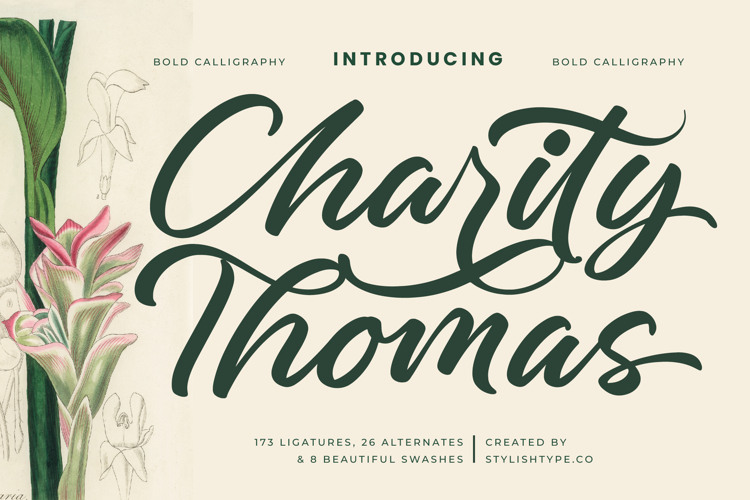
Charity Thomas - Bold Calligraphy Font
Charity Thomas is a bold calligraphy font designed to bring strength, elegance, and modern artistry into creative projects. With its thick strokes, dynamic curves, and confident style, this typeface captures attention while maintaining refined sophistication. Featuring 173 ligatures, 26 alternates, and 8 beautiful swashes, it provides endless creative possibilities for impactful and stylish lettering.
This font excels in branding. Perfect for logos, product labels, boutique shops, lifestyle brands, and packaging, Charity Thomas conveys authority and elegance. Its bold calligraphic strokes ensure that branding projects stand out with a strong, memorable identity, making it ideal for businesses aiming for both power and beauty.
In editorial and publishing, Charity Thomas adds impact and refinement. Magazines, book covers, posters, and invitations benefit from its striking calligraphic style. It creates editorial layouts that are visually dynamic yet sophisticated, making every title and headline resonate with confidence.
For web typography, this bold calligraphy adapts seamlessly across blogs, websites, portfolios, and social media platforms. Its dramatic presence ensures that digital media projects look stylish, artistic, and impactful, perfect for creators and brands that want to make a bold statement online.
Charity Thomas also thrives in advertising and marketing. From billboards, promotional campaigns, and posters to product packaging and business cards, it commands attention and delivers messages with elegance. It ensures that advertising projects remain powerful and stylish, appealing to audiences that value both creativity and sophistication.
The font is well-suited for wedding and event stationery with a bold and elegant flair. Its dramatic swashes and confident strokes transform invitations, signage, and decorative stationery into unforgettable designs. It’s a perfect choice for wedding branding and high-end celebrations.
In packaging design, Charity Thomas adds an exclusive, premium touch. From cosmetics and beverages to artisan goods and luxury products, its bold handwritten style ensures that packaging communicates power, elegance, and quality, making products stand out in any marketplace.
More than just a font, Charity Thomas is a design statement. With its bold calligraphy elegance, artistic versatility, and refined power, it allows designers to create projects that are visually striking, timeless, and sophisticated.